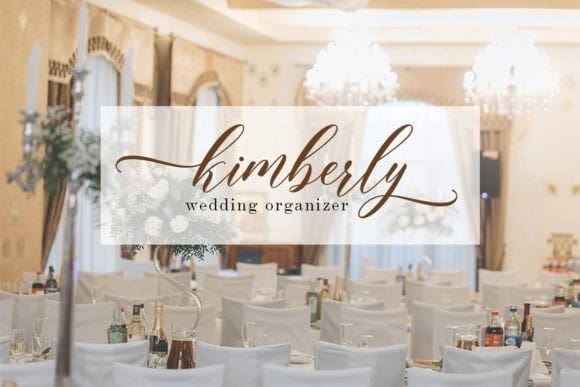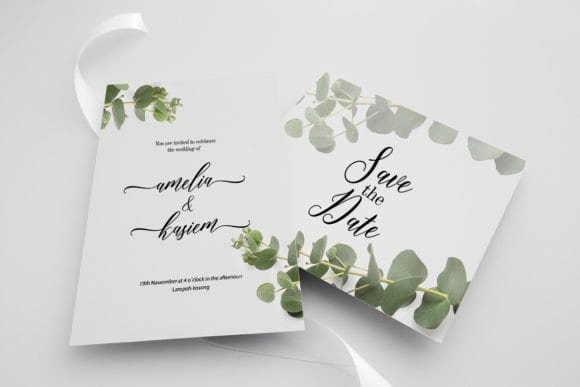
Kembali Script Font
Kembali Script Font, a harmonious blend of delicacy and elegance rendered as a contemporary script font. Its slender letterforms come alive with fluid strokes and understated curves, crafting a sense of finesse and refinement. Kembali is an ideal choice for projects demanding a touch of class and chic sophistication, making it a go-to choice for wedding invitations, upscale branding, or high-end editorial design.